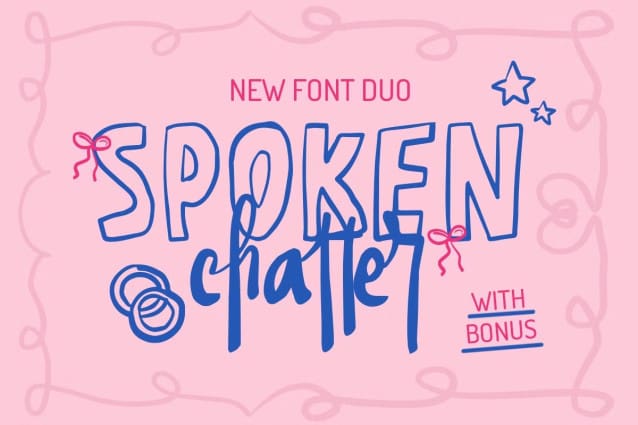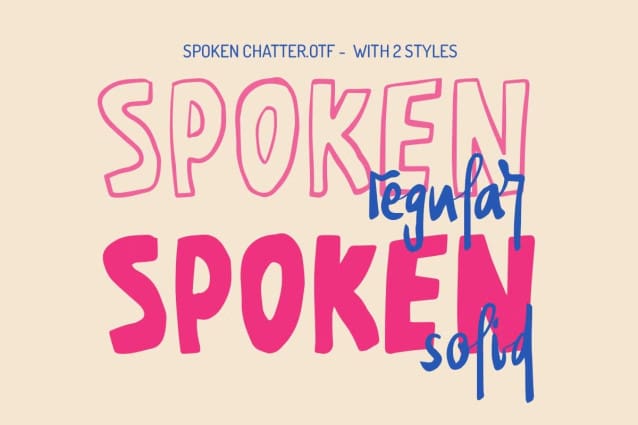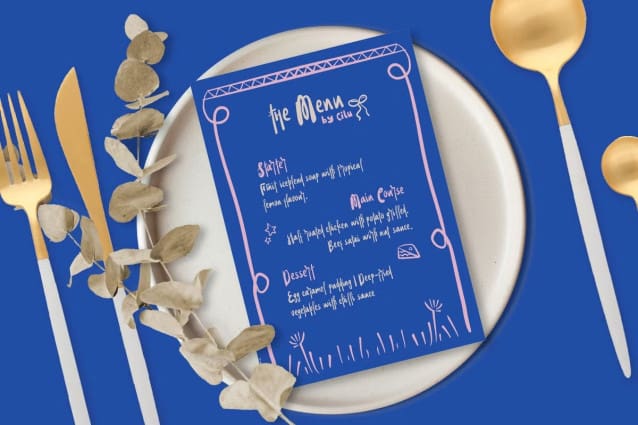
Spoken Chatter Font Duo
Spoken Chatter Font Duo, the imperfect handwritten font duo but so artsy! With its straightforward strokes, SpokenChatter radiates a warm and approachable vibe. It’s perfect for various design needs, offering a artsy and charming touch to your projects. Don’t miss out on this delightful, lovely and adaptable font!